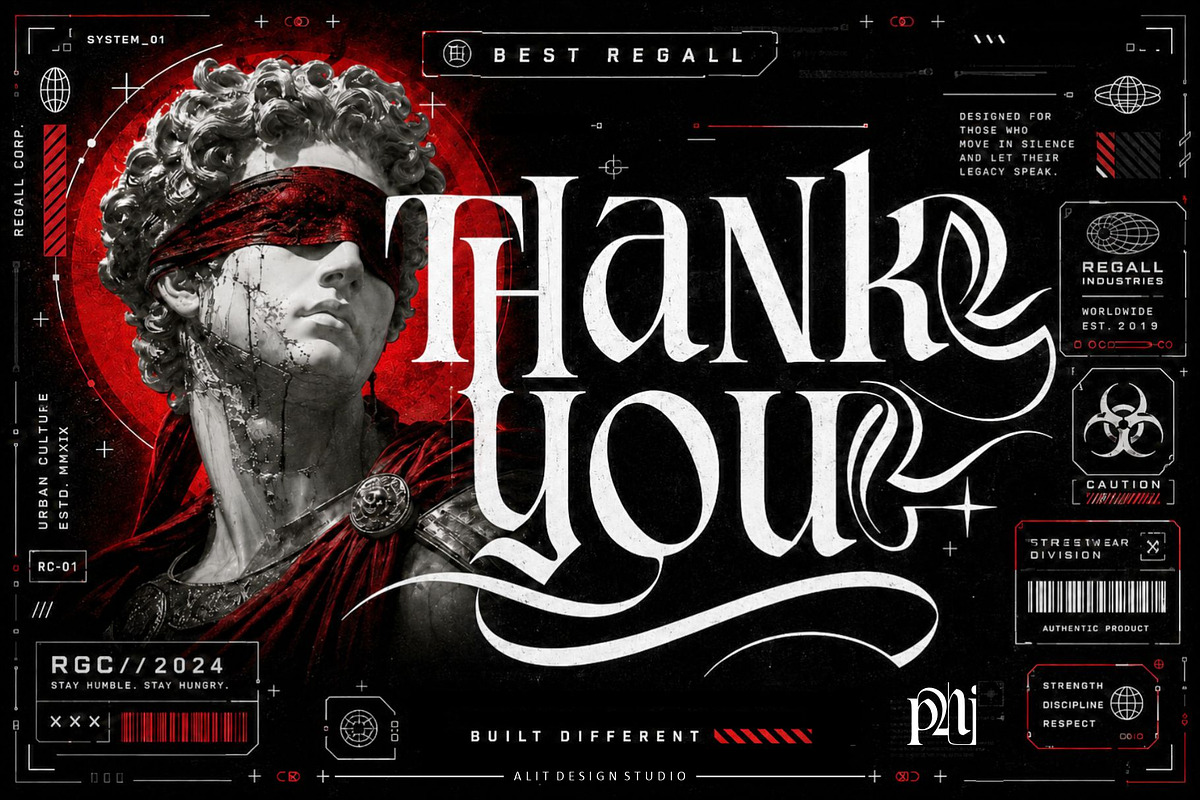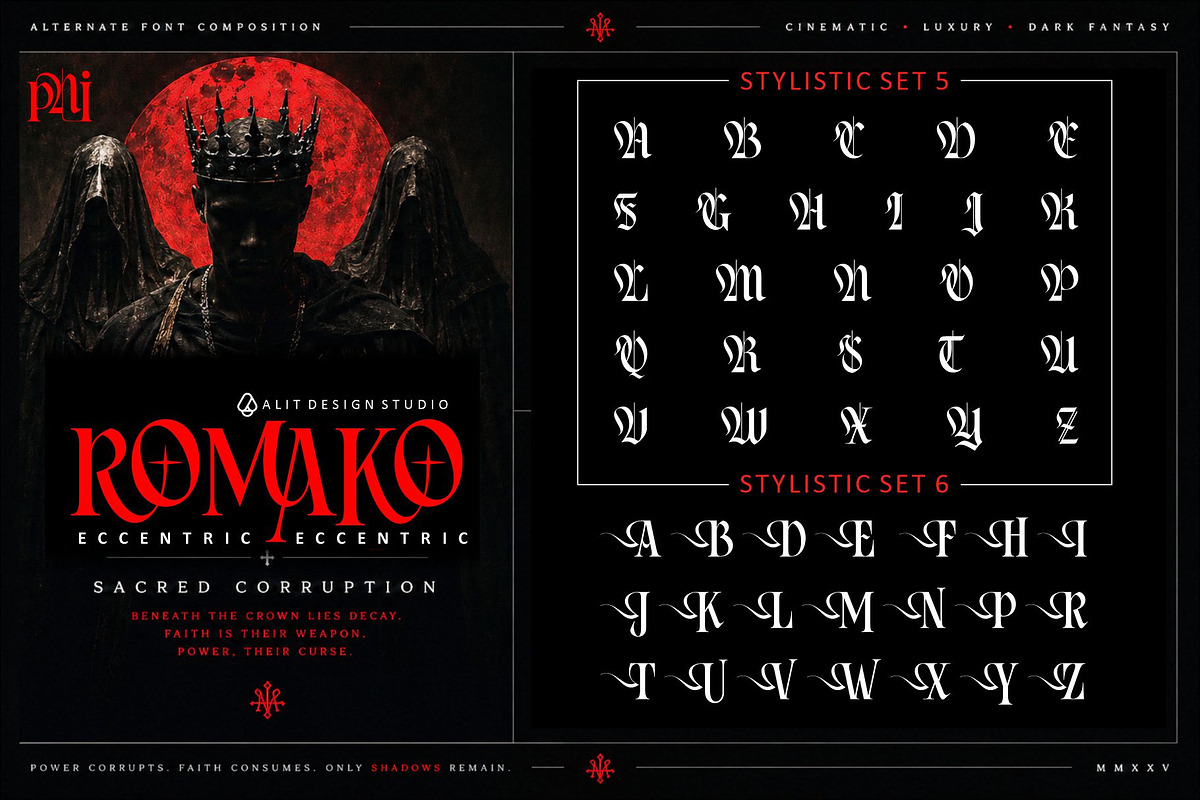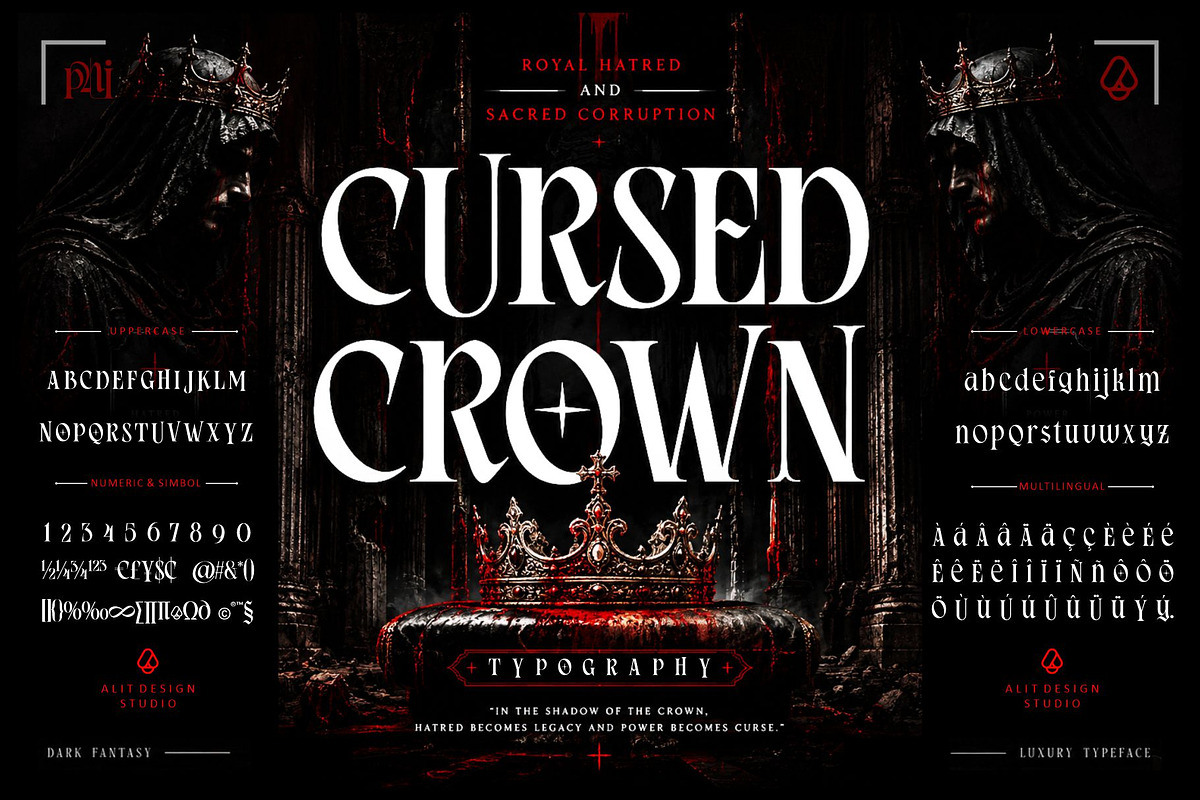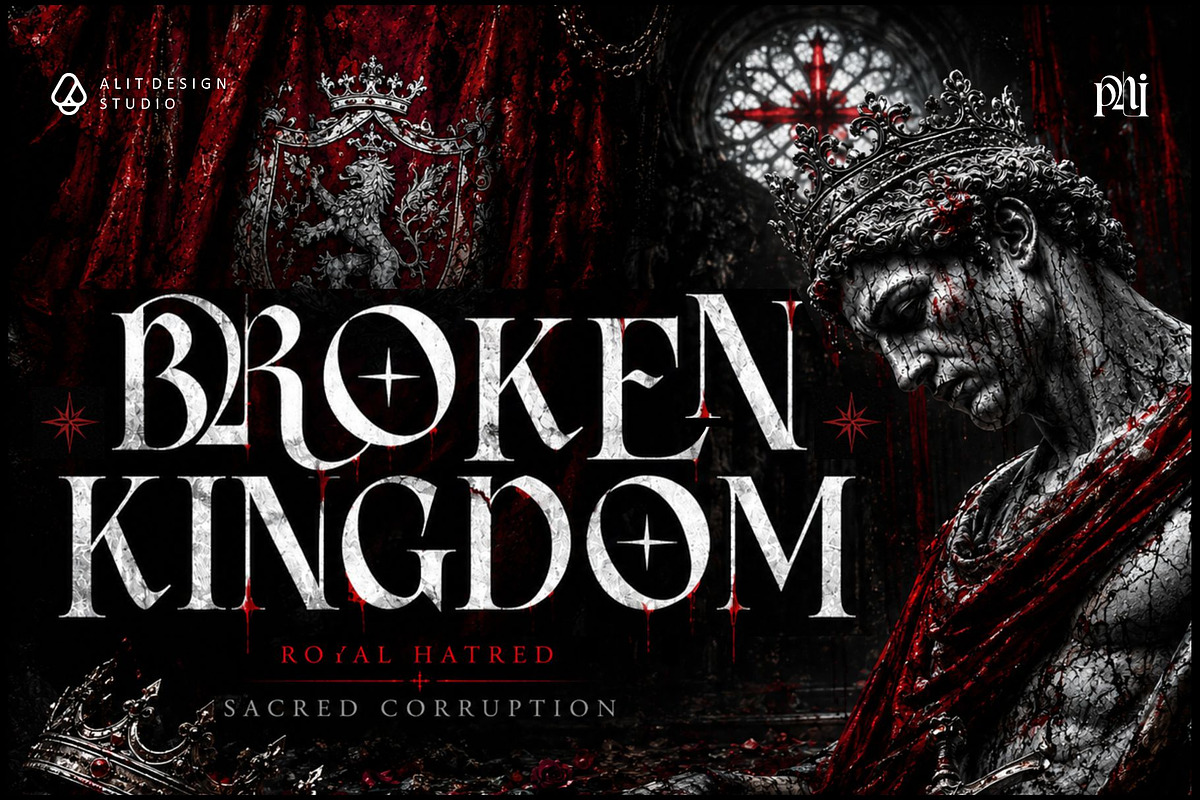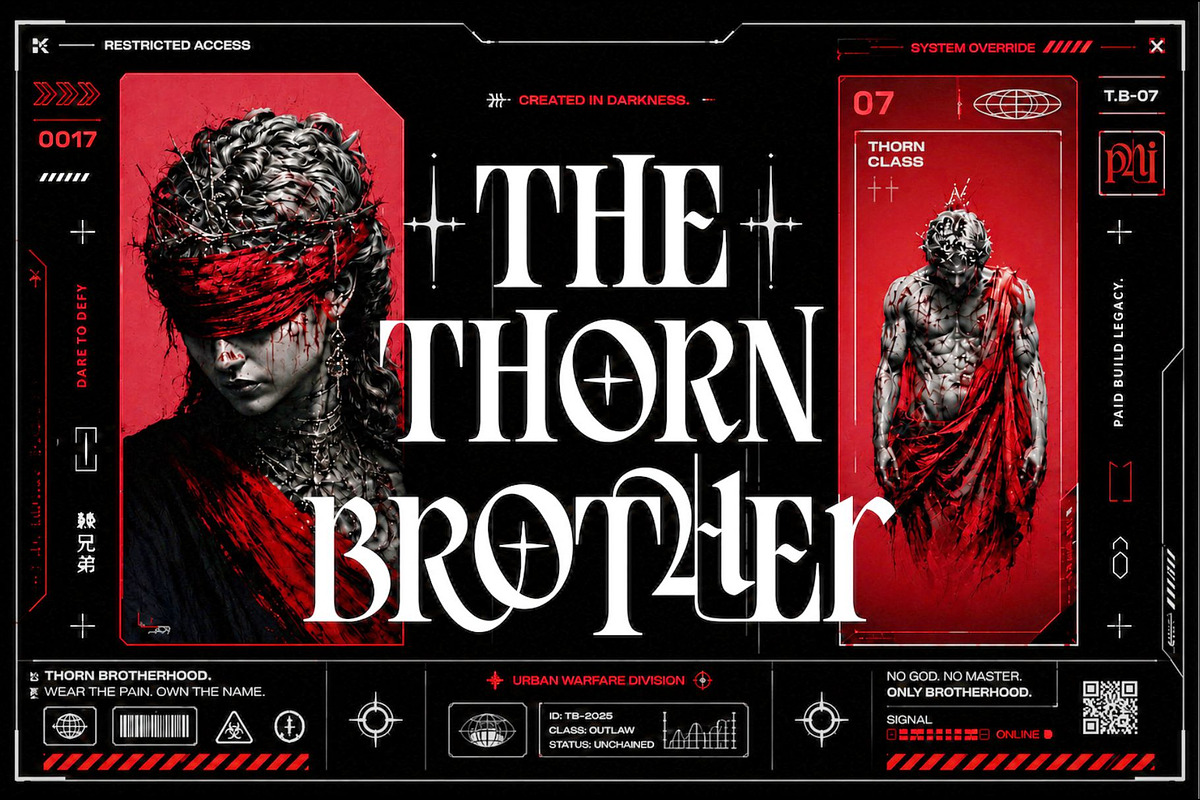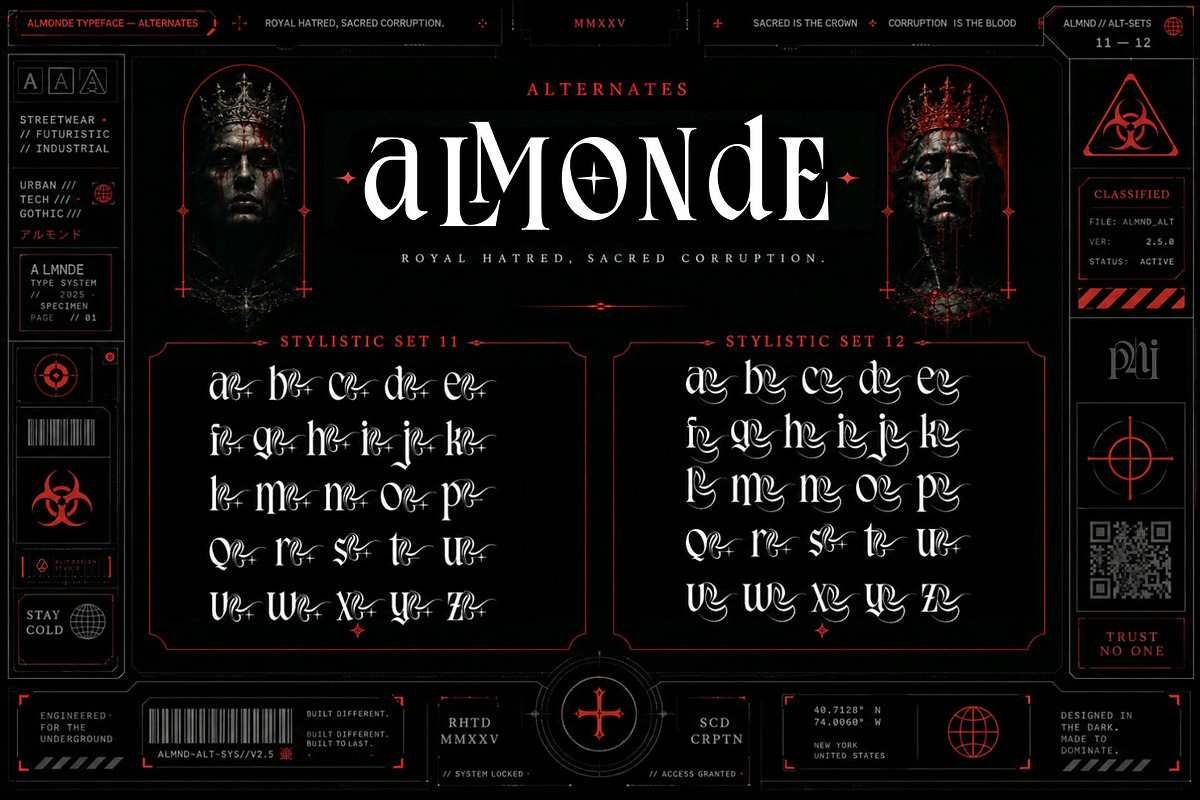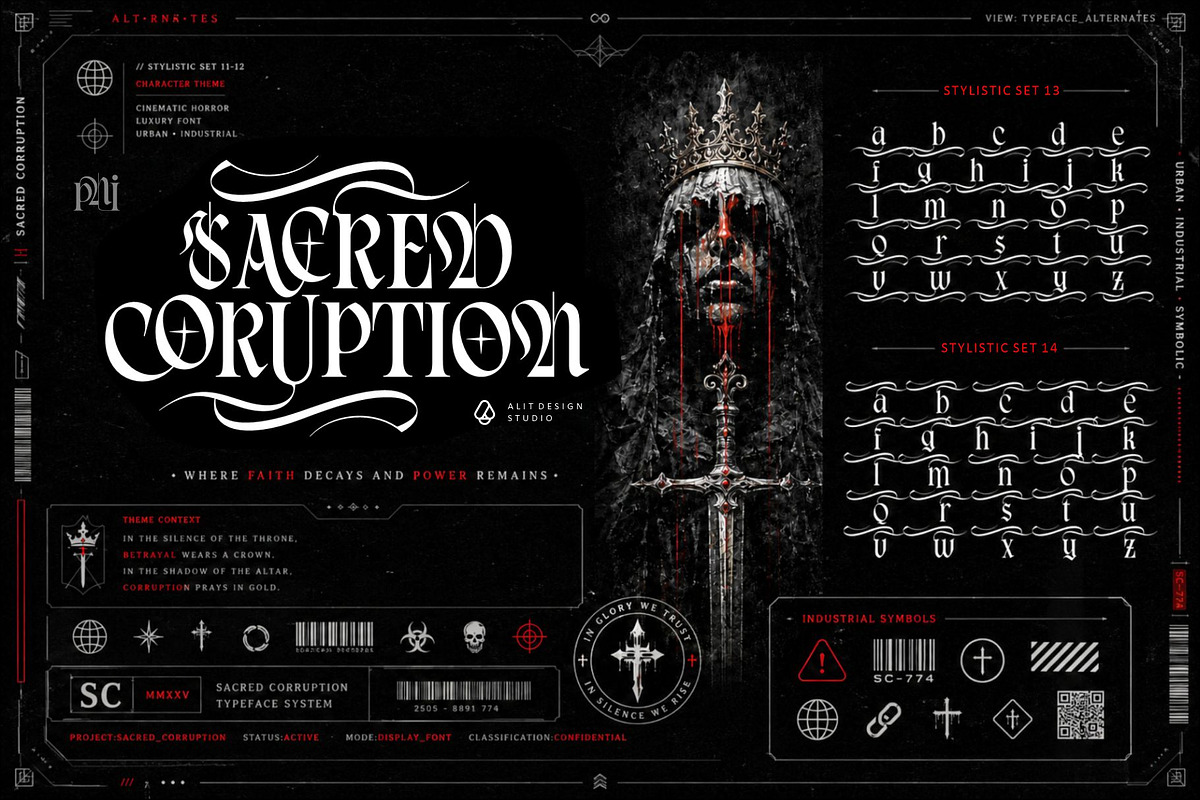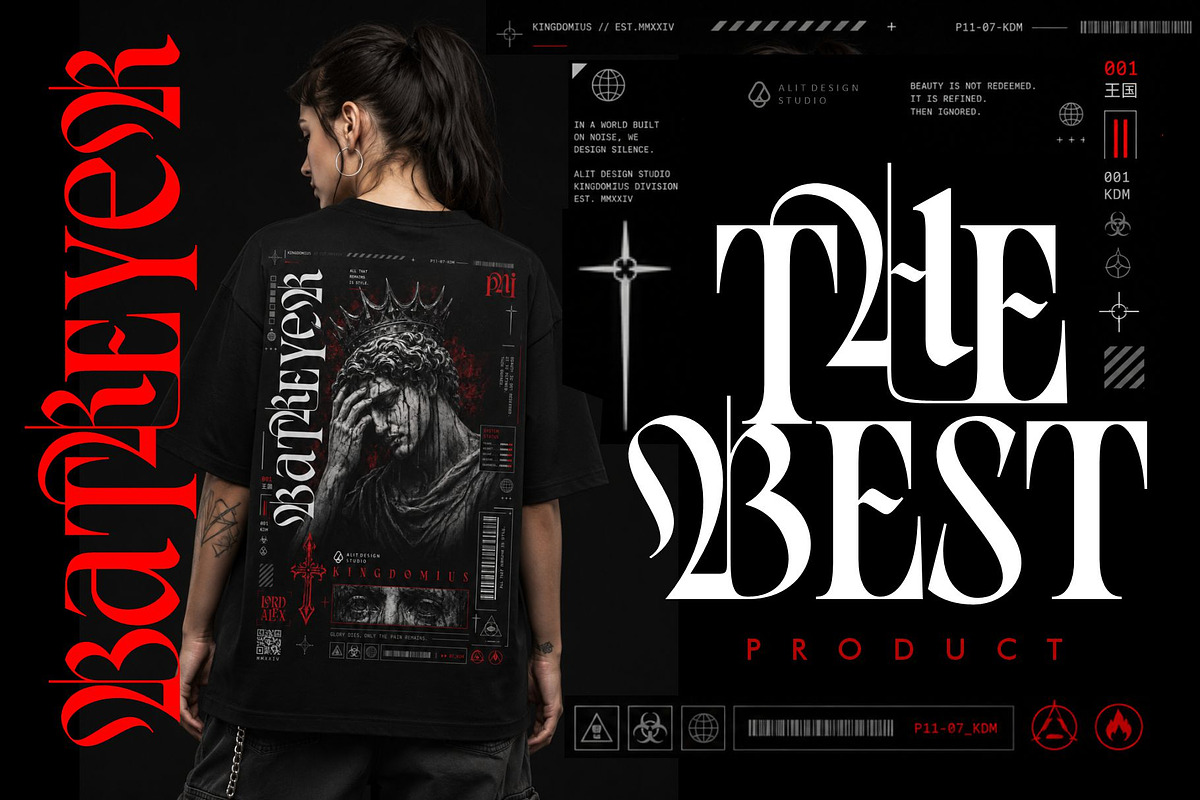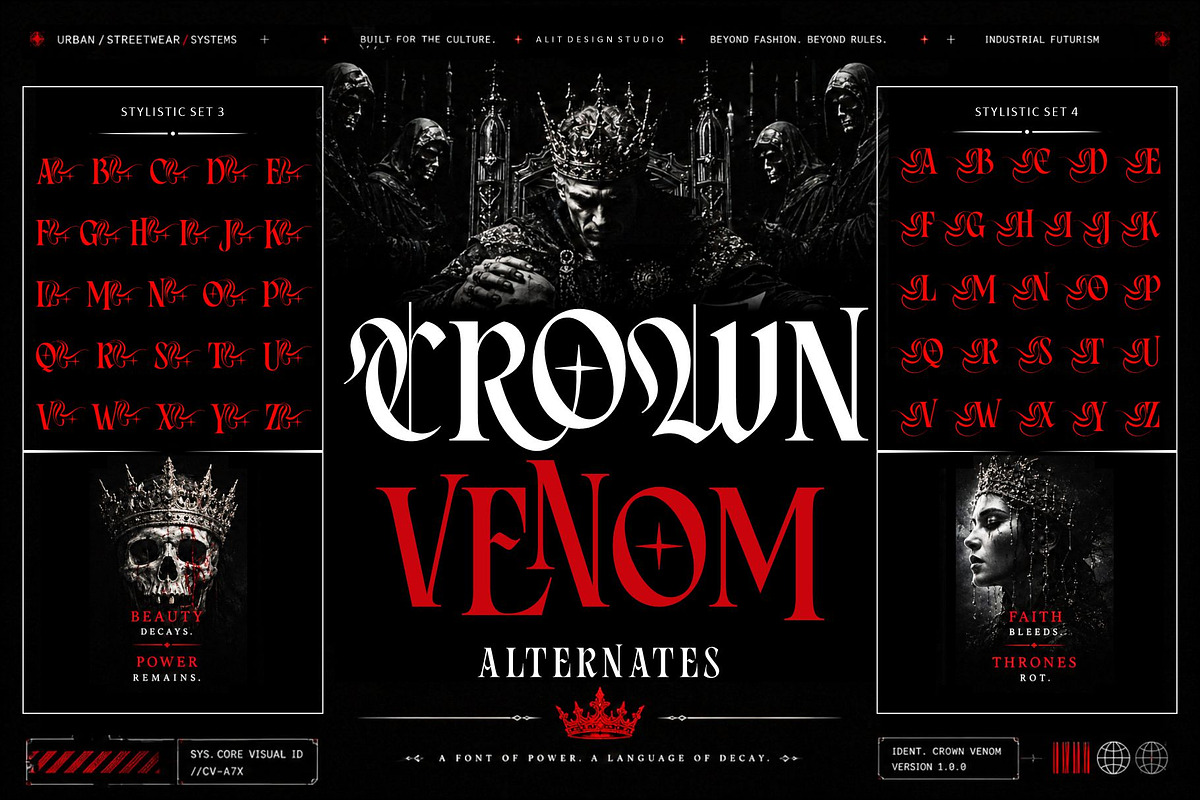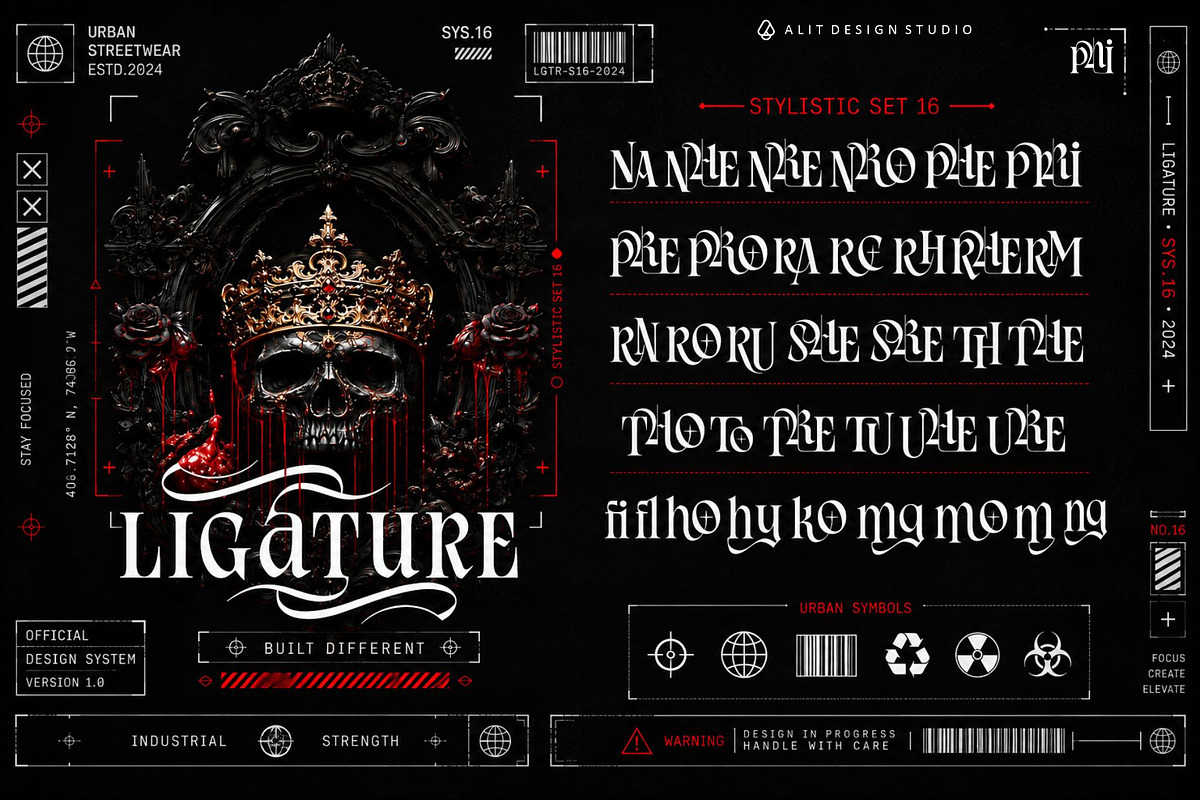
Royal Hatred Typeface
Royal Hatred – Dark Fantasy Gothic Serif
"In the shadow of the crown, hatred becomes legacy and power becomes a curse."
Introducing Royal Hatred, a meticulously crafted gothic serif typeface born from the aesthetic of dark fantasy, royal decay, and sacred corruption. Designed for high-impact, high-contrast visuals, this premium font fuses classical blackletter elegance with an edgy, modern, and almost cyberpunk-inspired aggression.
Royal Hatred is not just a typeface; it is a cinematic experience. With its sharp, sweeping serifs, dramatic swashes, and intricate cross-inspired details, this font commands attention. It is the ultimate tool for designers looking to inject raw power, dark elegance, and a touch of the occult into their projects.
Whether you are designing for the underground streetwear culture, cinematic horror movie posters, heavy metal album art, dark fantasy book covers, or high-end gothic branding, Royal Hatred delivers an uncompromising aesthetic.
What makes Royal Hatred special?
The true power of this typeface lies in its massive glyph palette. Featuring over 12 Stylistic Sets, you have absolute freedom to customize your typography. From subtle, elegant curves to aggressive, thorny swashes and religious iconographic accents, you can mix and match characters to create bespoke, hand-lettered-looking logos and headlines.
Dark Fantasy & Horror Book Covers
Cinematic Movie Posters & Title Sequences
Underground Streetwear & Apparel Design
Heavy Metal / Metalcore Album Artwork
Tattoo Studio Branding
Esports Logos & Gaming Interfaces
Gothic & Edgy Luxury Branding
Features Included:
Standard Glyphs: Uppercase, Lowercase, Numerals, and full Punctuation.
Extensive Alternates: A massive collection of Alternate Glyphs spanning Stylistic Sets 1 through 12, featuring custom swashes, flourishes, and cross accents.
Ligatures: Custom ligatures for seamless and unique character combinations.